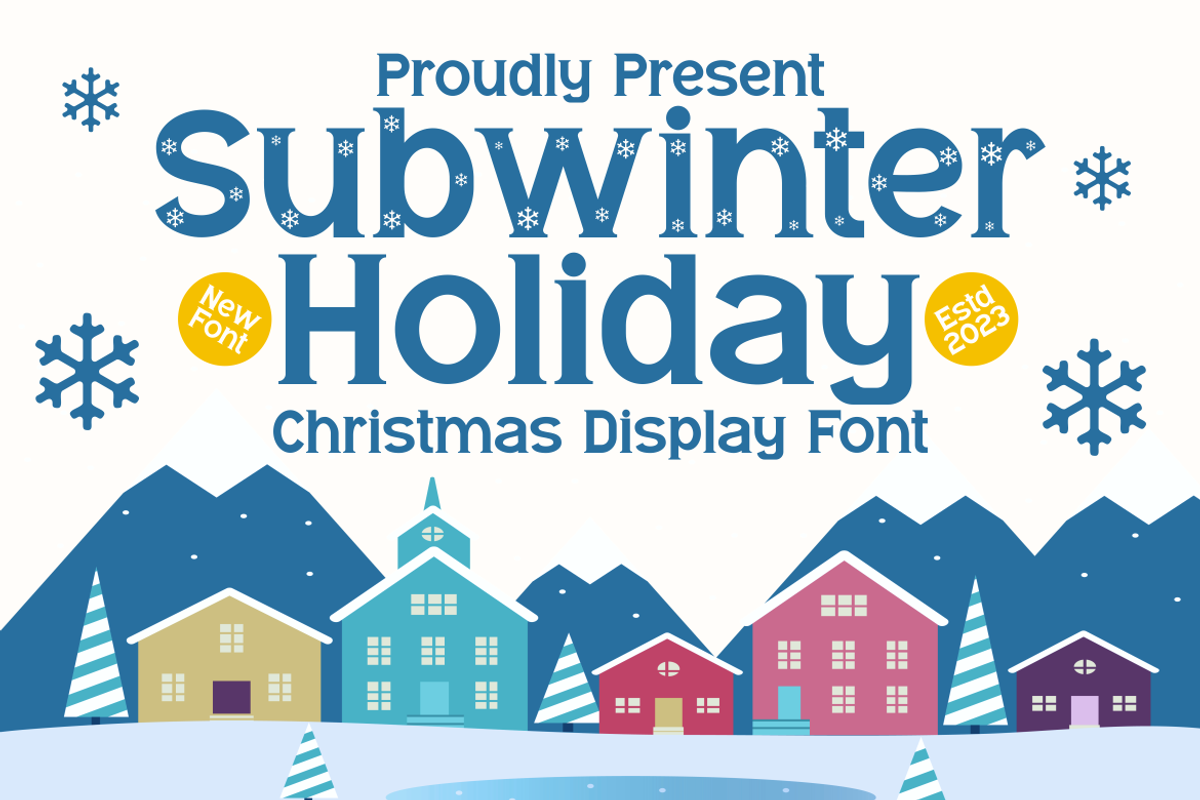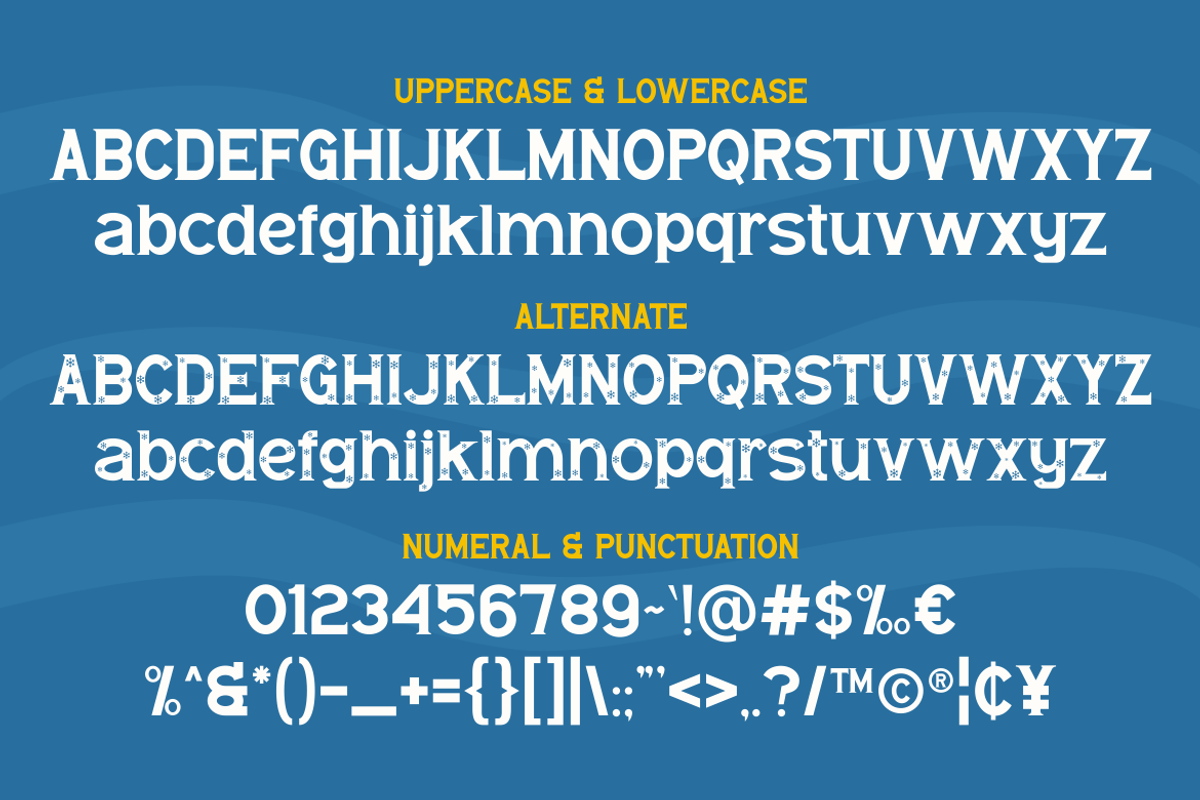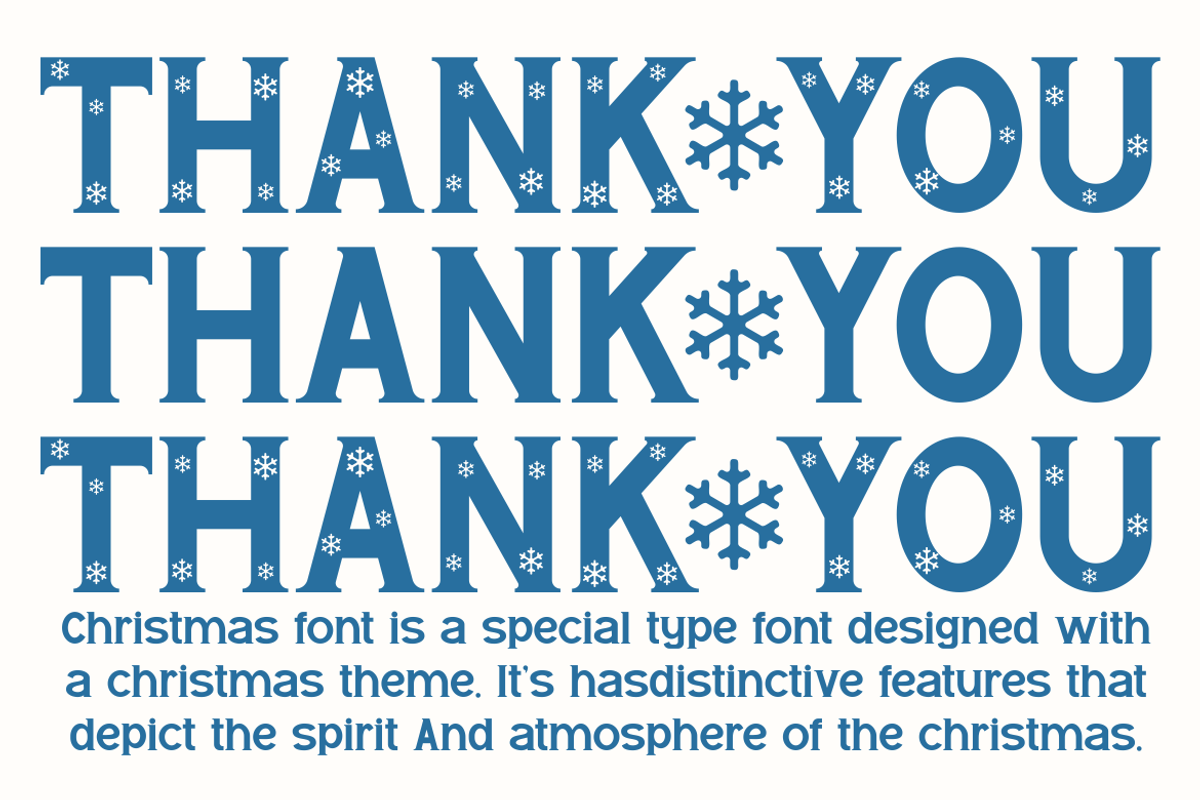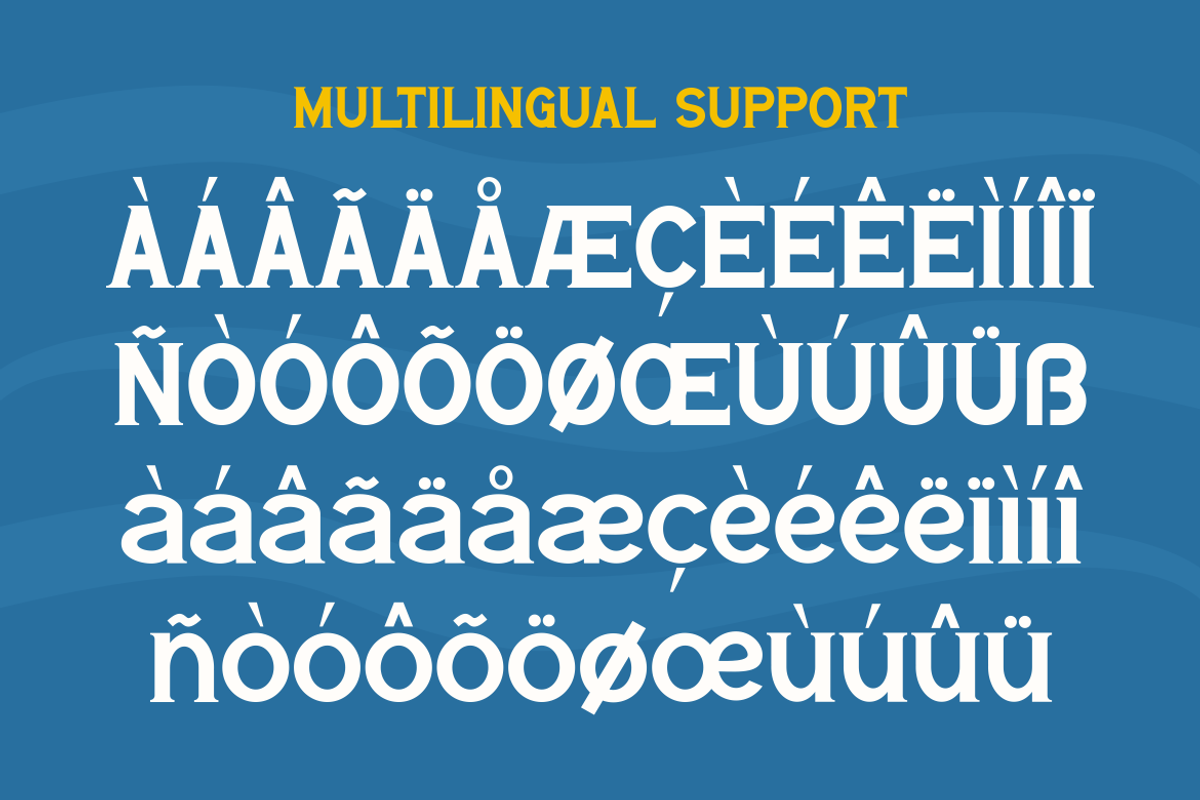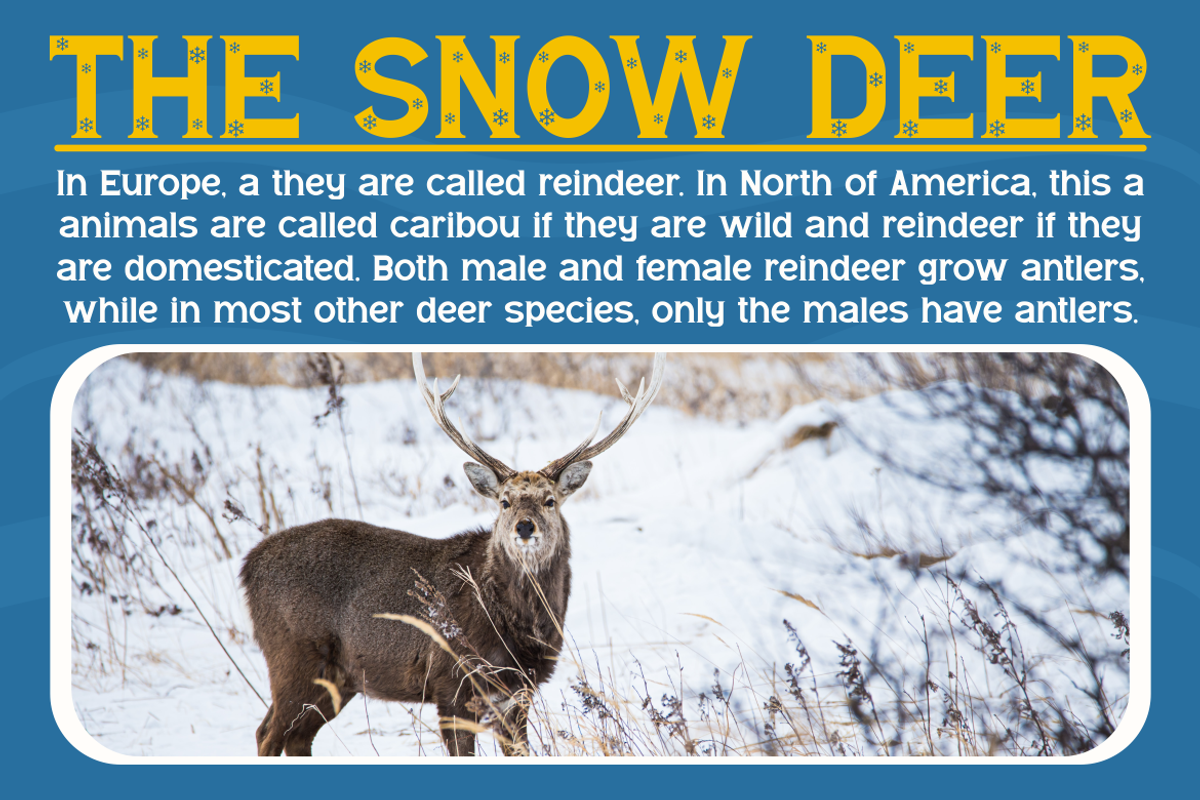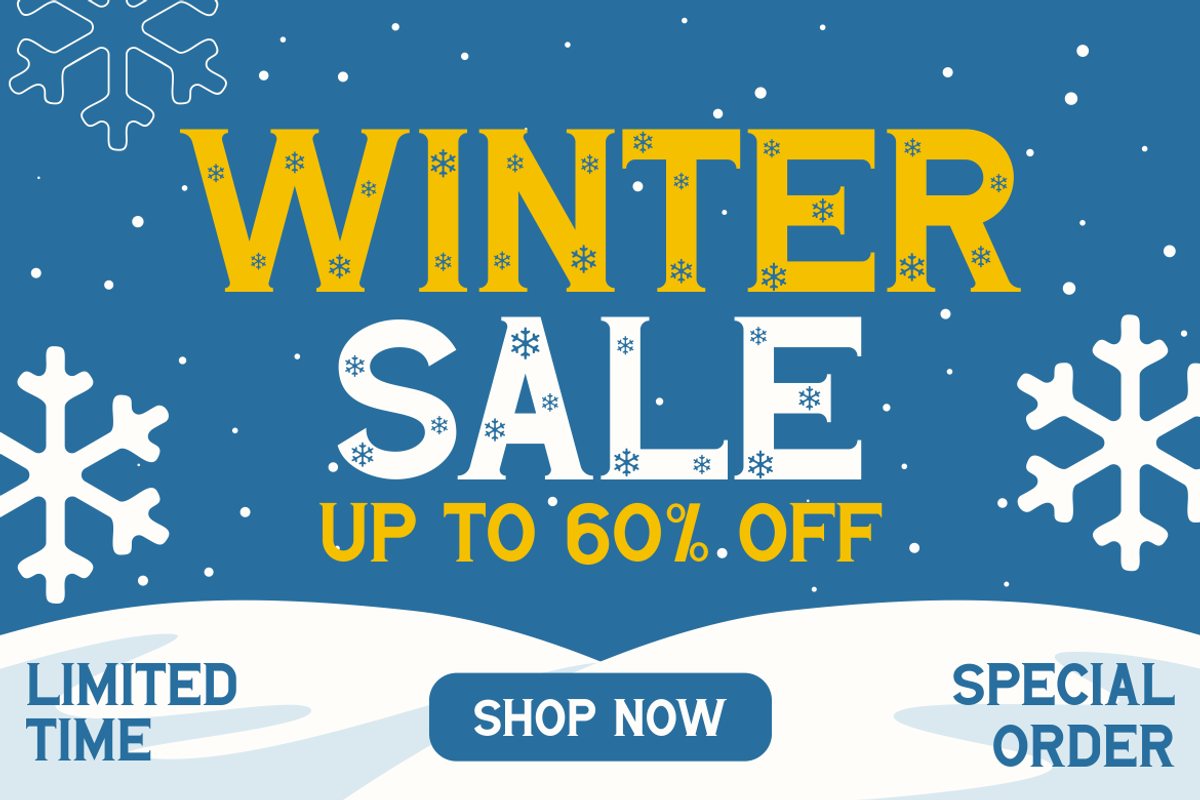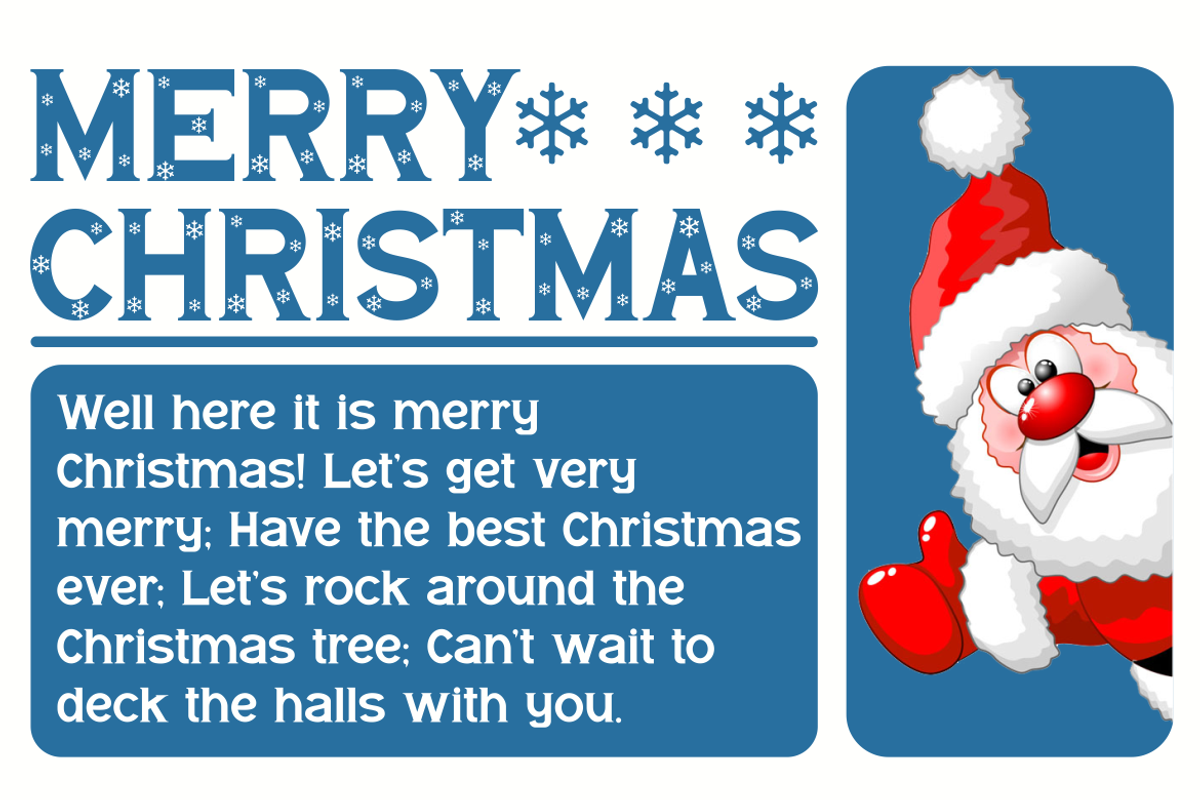
Subwinter Holiday Font
Introducing our new product Subwinter Holiday - Christmas Display Font
This font is specifically designed to create a Christmas atmosphere and mood. This font can be used in various design contexts, including greeting cards, flyers, banners, and other decorations. With diverse characters ranging from uppercase to lowercase, this font provides flexibility to express creativity in every Christmas design project. With this font, every word becomes a part of the celebration, bringing the joy and warmth of Christmas into our writings. Embrace the holiday season with the magical touch of each letter that brings the Christmas cheer to every observer.